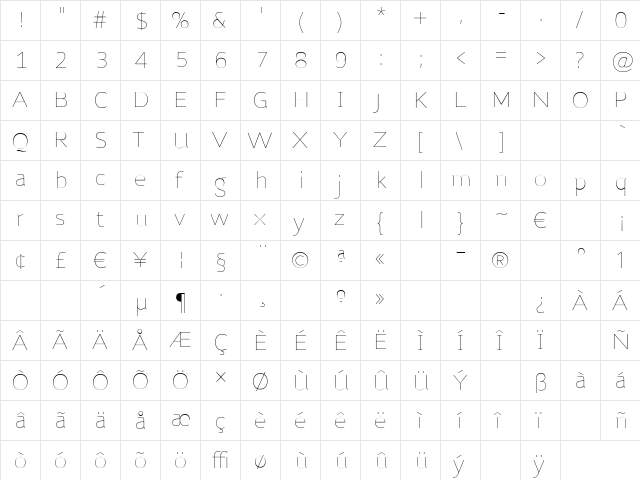
NubianAltThin Regular
Design Context for NubianAltThin Typeface
NubianAltThin is a composed and adaptable typeface that performs quietly and consistently across a wide range of design contexts. Its slender proportions lend an understated elegance to any composition.